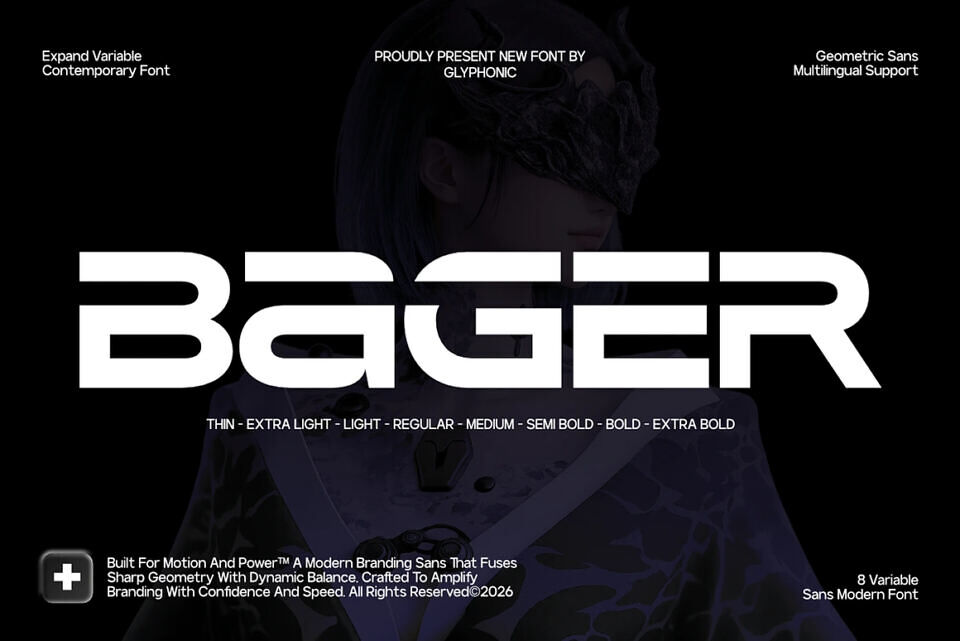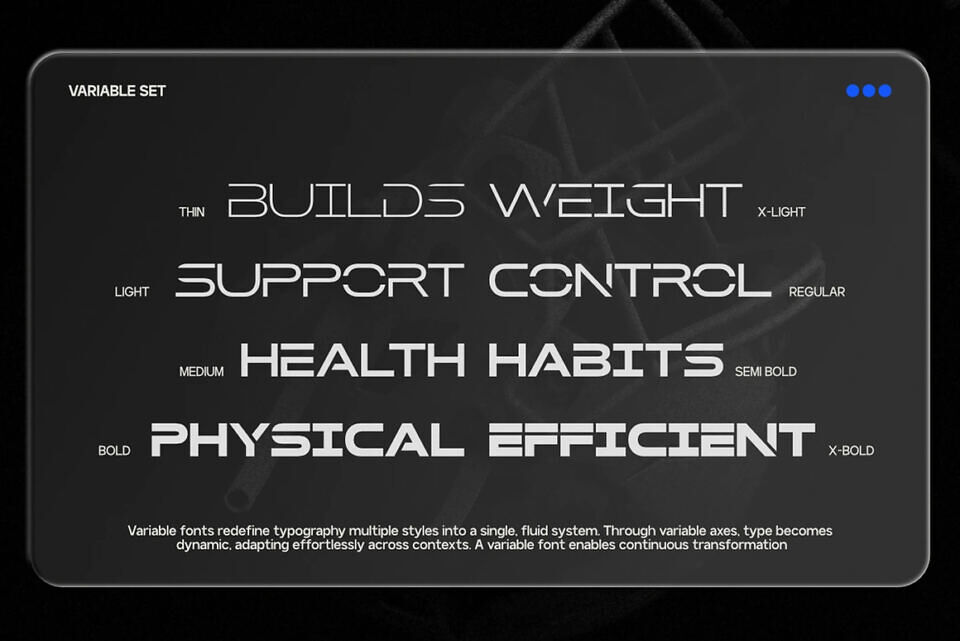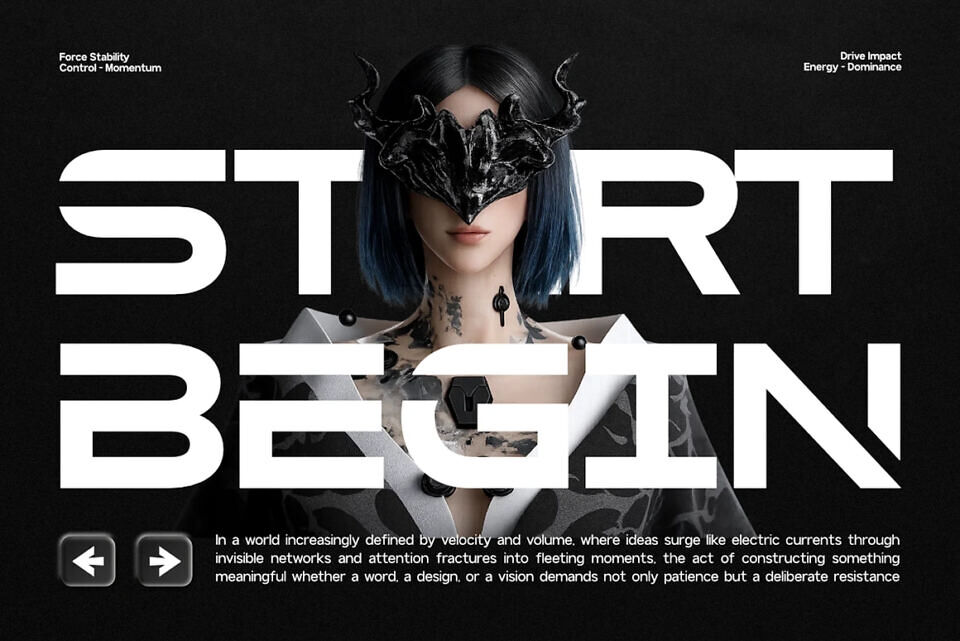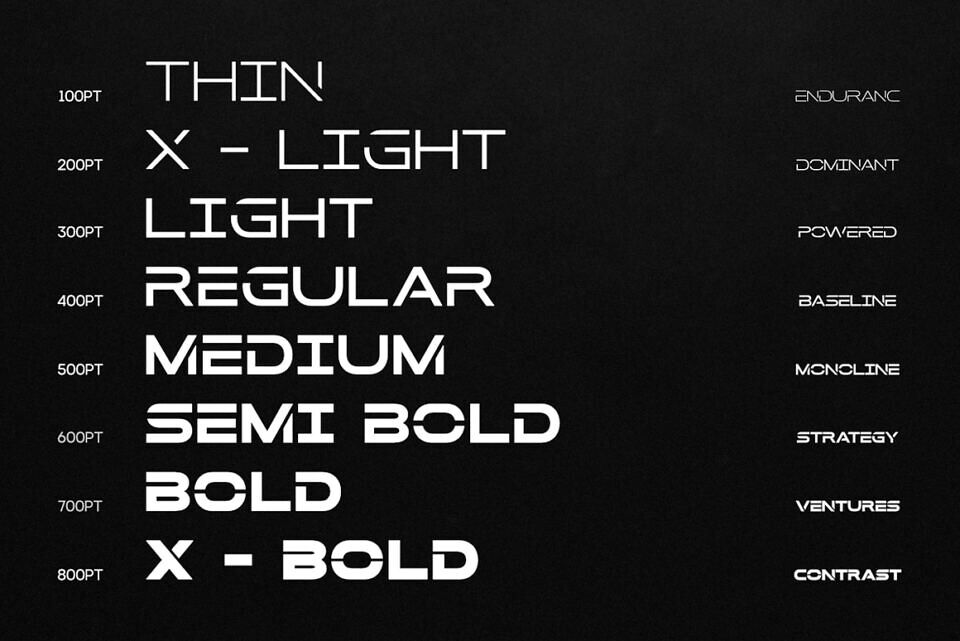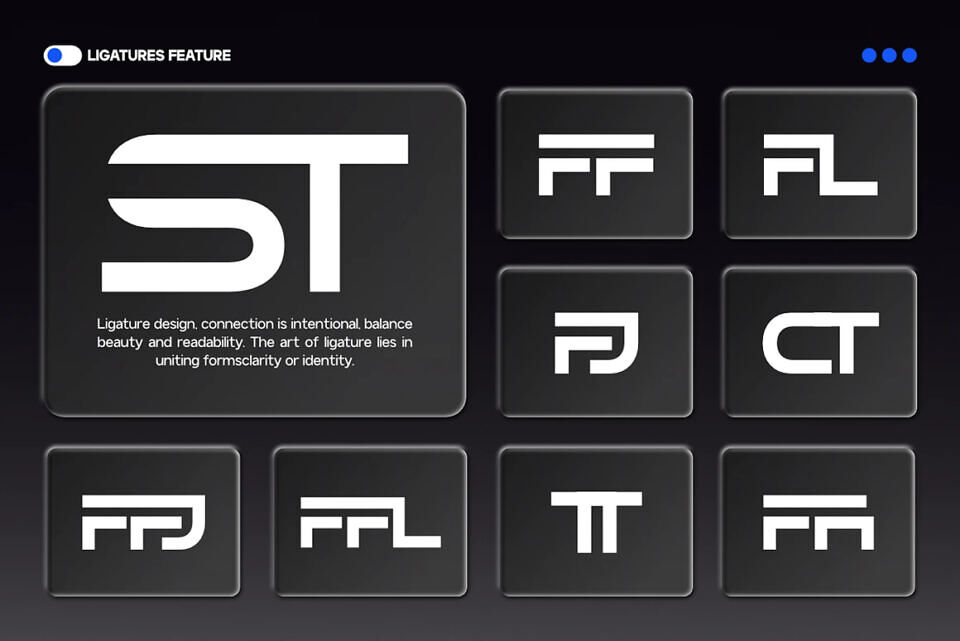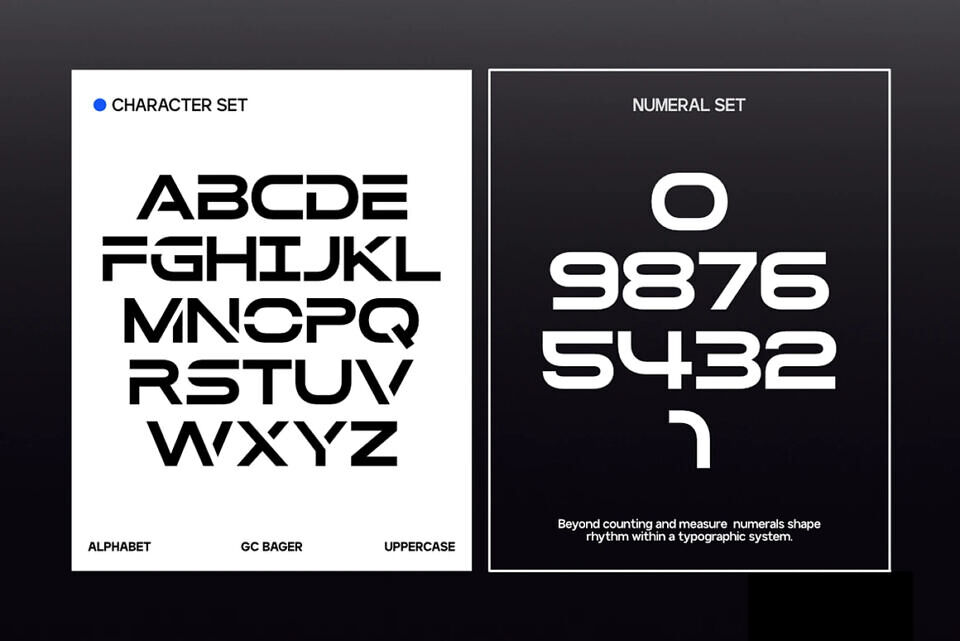
GC Bager is a modern sans serif typeface crafted with sharp geometry and a forward-thinking aesthetic. Designed to embody speed, precision, and technological sophistication, Bager delivers a bold and futuristic typographic voice that stands out in high-impact visual environments.
Built with extended proportions, clean cuts, and dynamic horizontal forms—as seen in its distinctive letter structure—GC Bager creates a strong sense of motion and direction. The geometric construction is enhanced with sleek detailing, making it ideal for designs that demand a cutting-edge and modern appearance. Whether used for dynamic interfaces, experimental layouts, or bold branding systems, GC Bager brings speed, structure, and futuristic clarity to your typography.